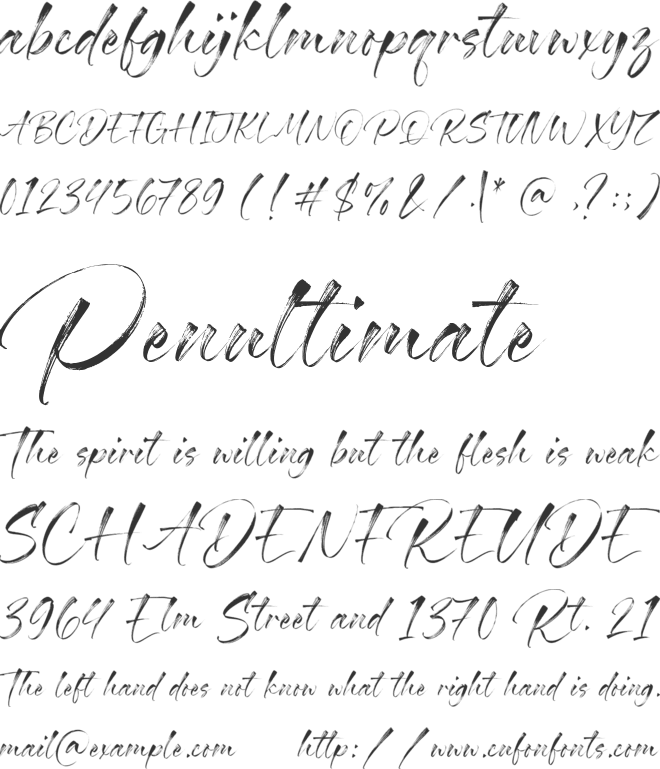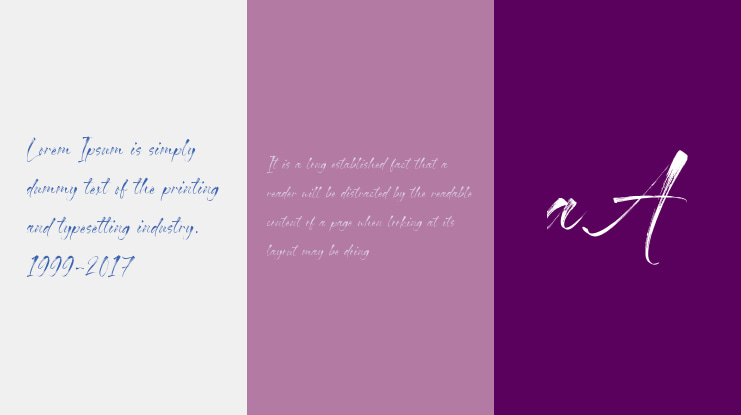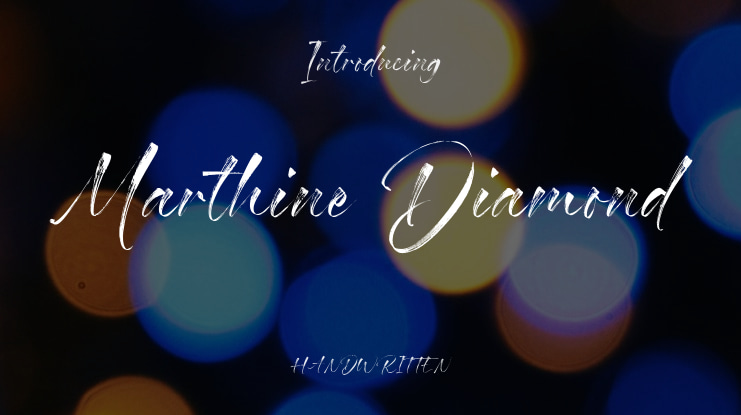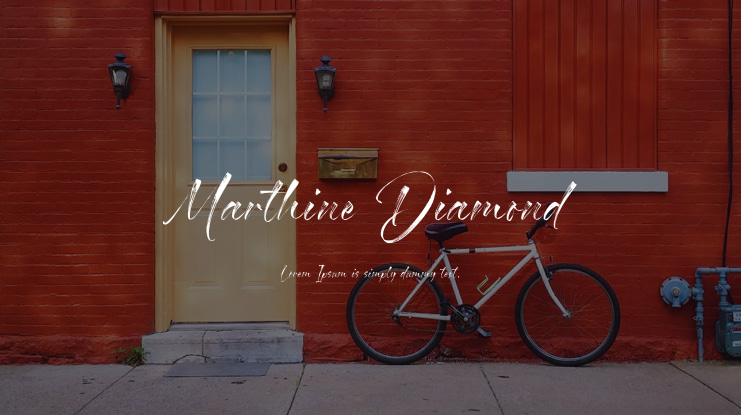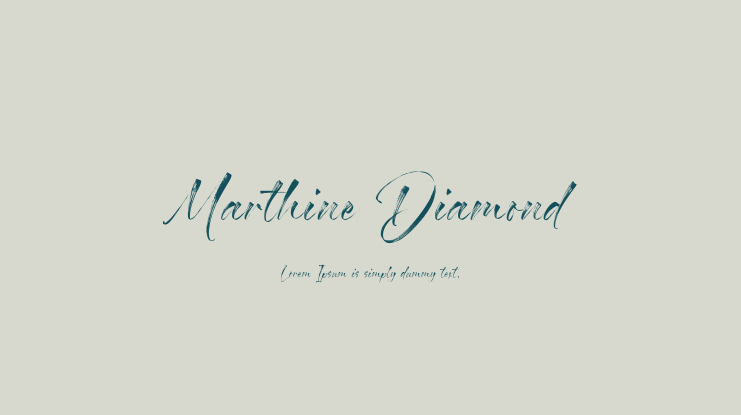
Introducing Marthine Diamond, a contemporary handbrushed script font brought to you by Timurtype Studio!
This font embodies modern design with its handwritten style, blending sophistication and spontaneity. It seamlessly combines the precision of digital craftsmanship with the organic flow of hand-drawn elegance. Each letter is a stroke of innovative brushwork, adding a dynamic and personalized touch to your projects. The sleek curves and smooth lines of this modern hand script font create visual harmony, infusing your designs with stylish authenticity. Enhance your creative expression as these fonts effortlessly complement a modern aesthetic, striking the perfect balance between avant-garde pieces and timeless works of art. Watch as your words take on a new dimension, where art fuses technology and tradition to create a visually captivating narrative uniquely your own.
Not only that, but the Marthine Diamond Font also supports multilingualism, allowing you to effortlessly communicate in various languages.
Key Features of the Marthine Diamond Font:
- Full set of standard alphabet and punctuation